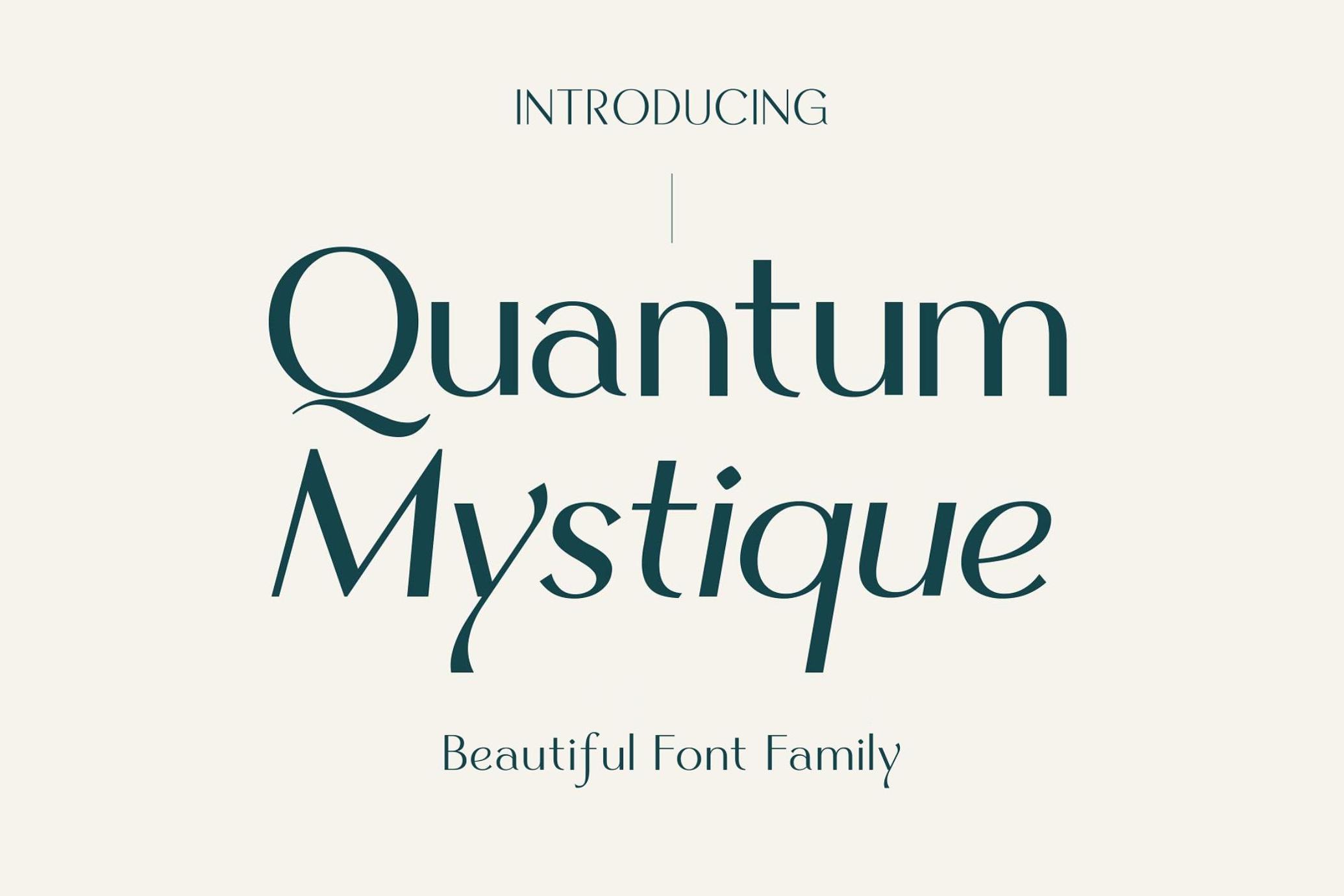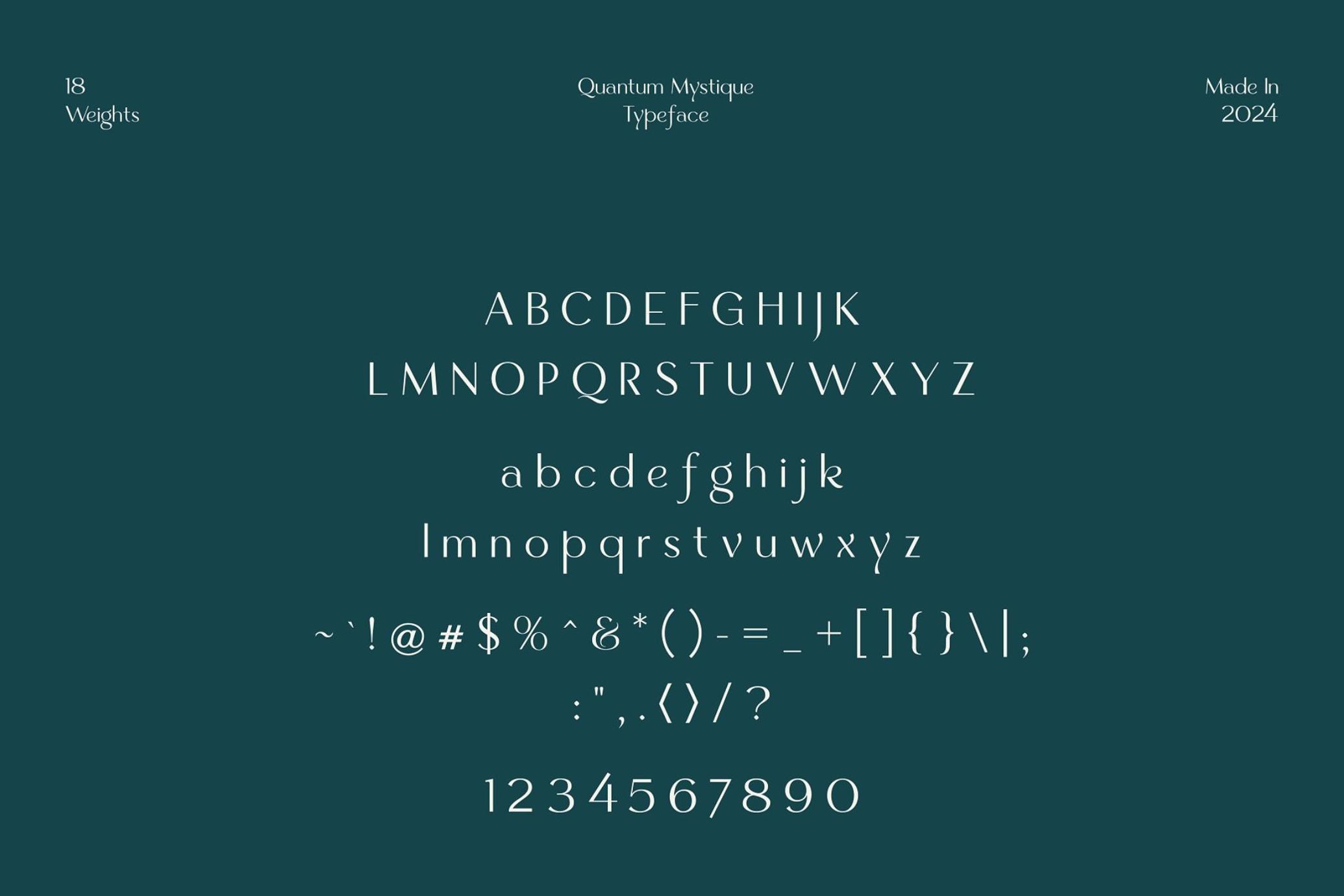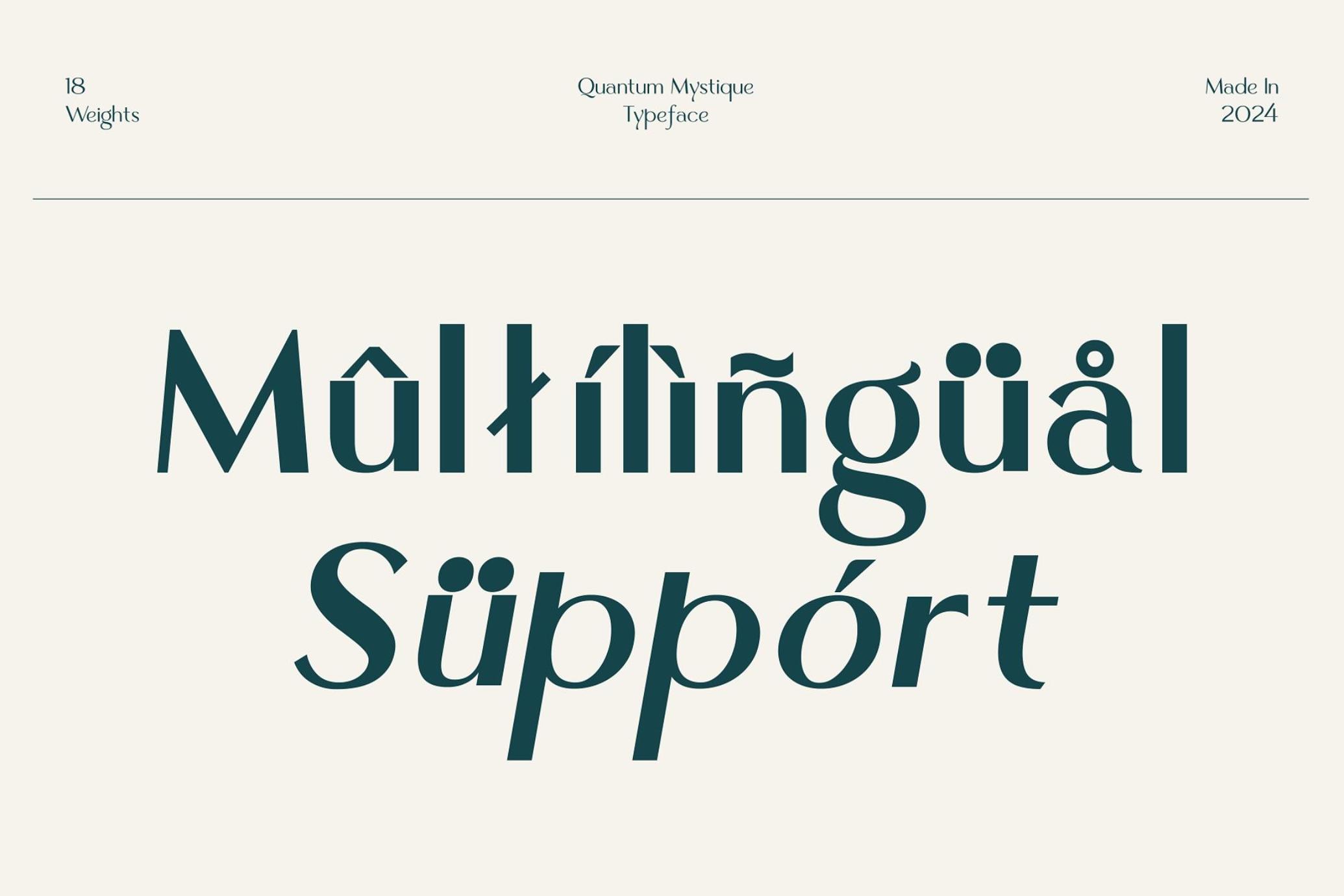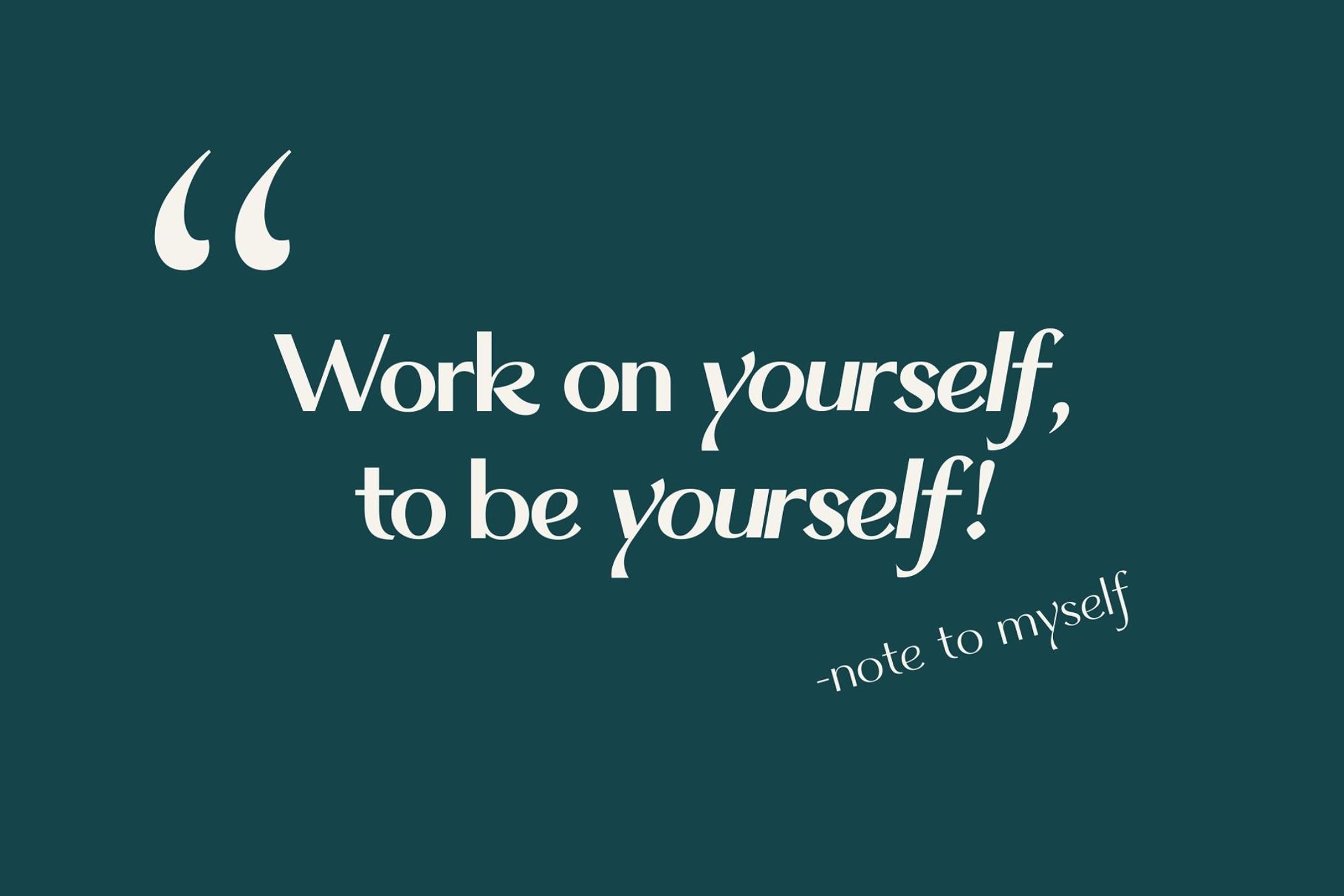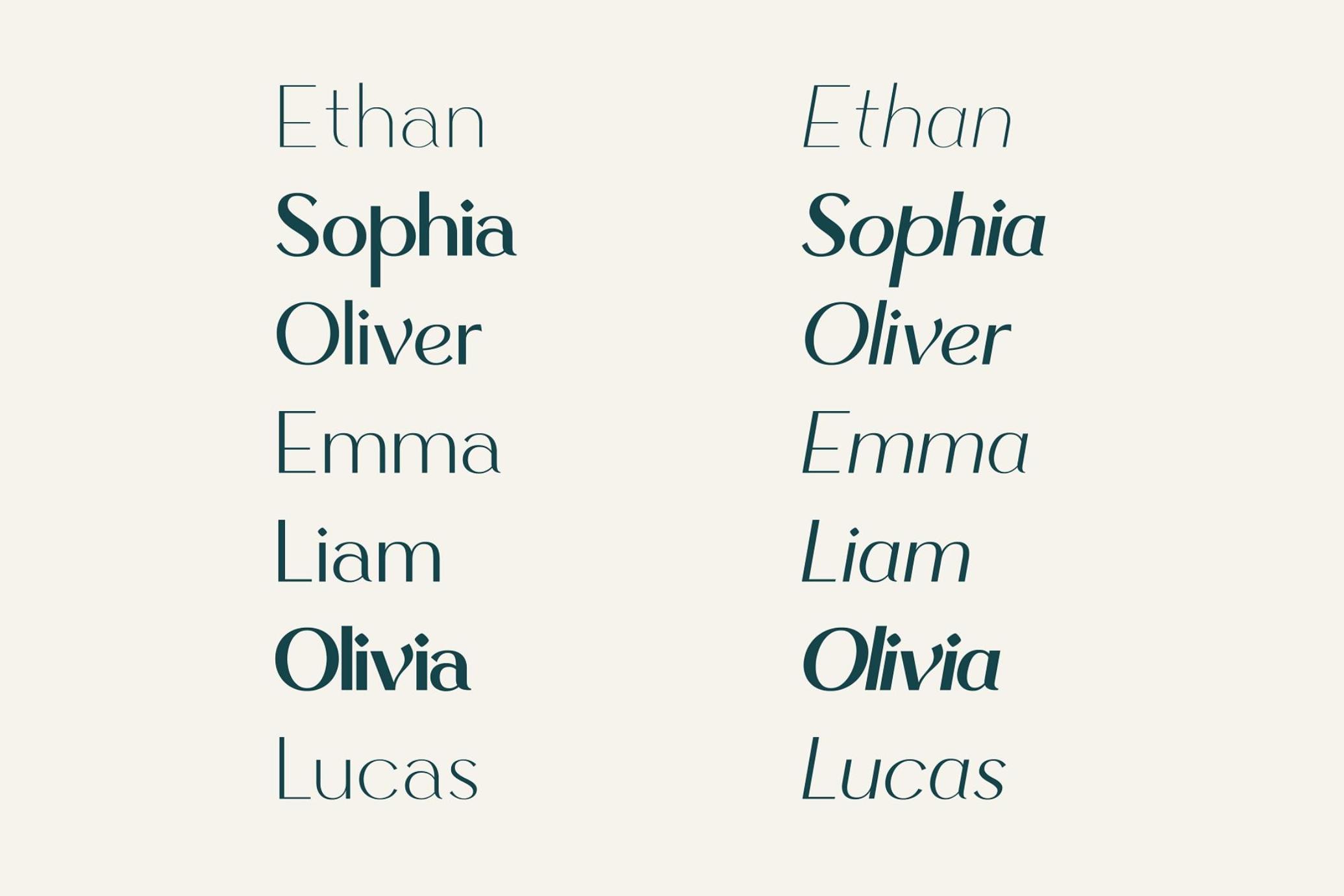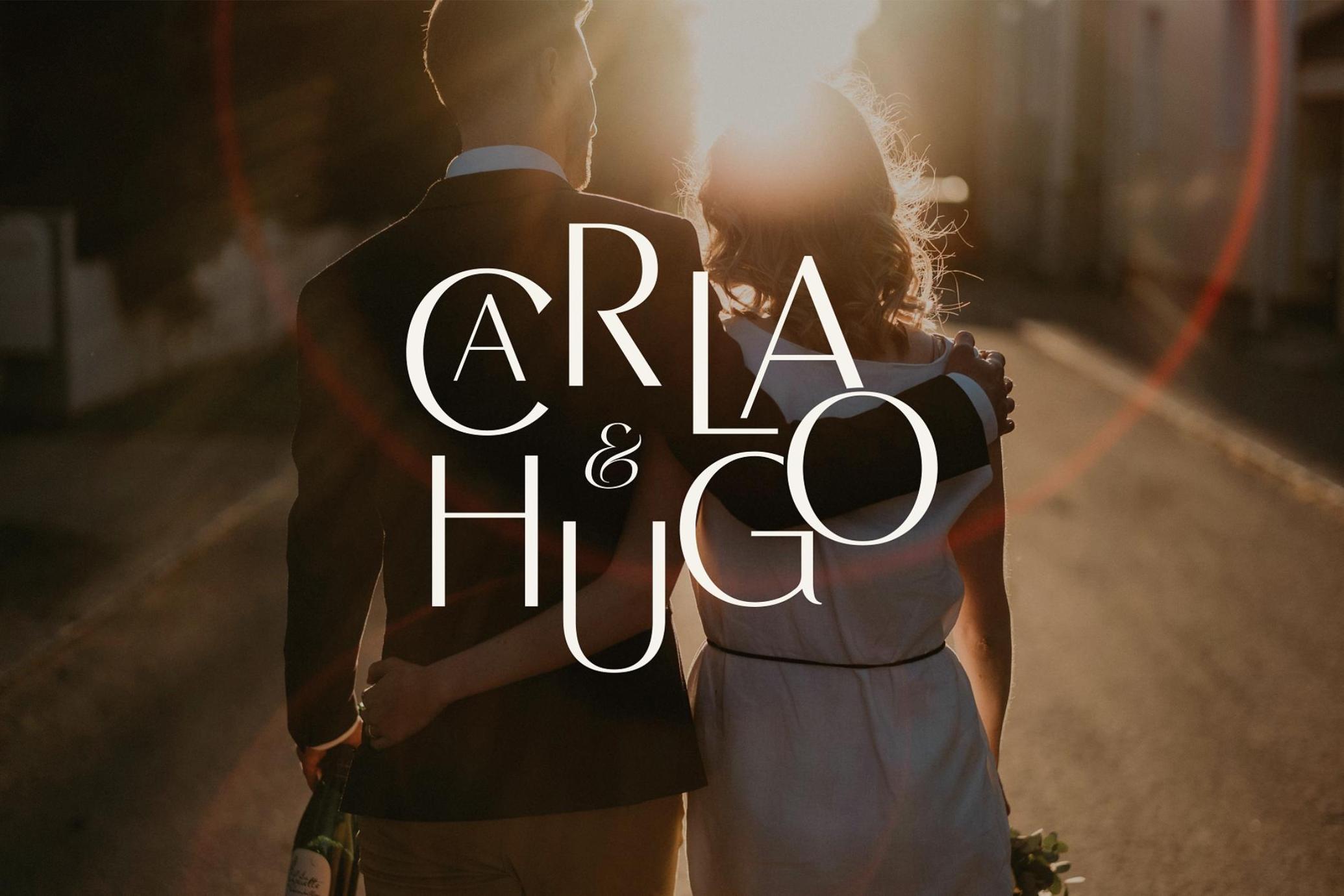
Quantum Mystique - Elegant Sans
Introducing Quantum Mystique, the epitome of elegance in the world of typography. This sophisticated sans-serif typeface is designed to captivate and inspire, seamlessly blending modern aesthetics with timeless grace.
Quantum Mystique isn't just a typeface; it's a design statement. Its blend of elegance, versatility, and multilingual support makes it an invaluable tool for designers seeking to create impactful and enduring work. Whether you're crafting a brand identity, designing editorial content, or developing digital interfaces, Quantum Mystique delivers the perfect balance of beauty and functionality.
Unlock the full potential of your creative projects with Quantum Mystique—the elegant sans typeface that will become an indispensable part of your design toolkit. Embrace the mystique and let your creativity shine.